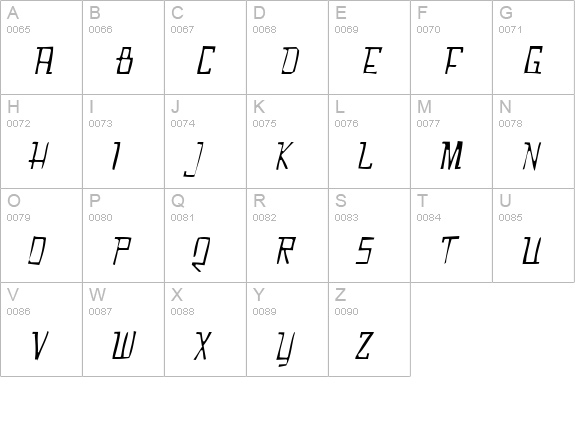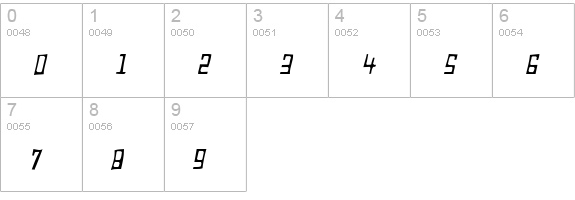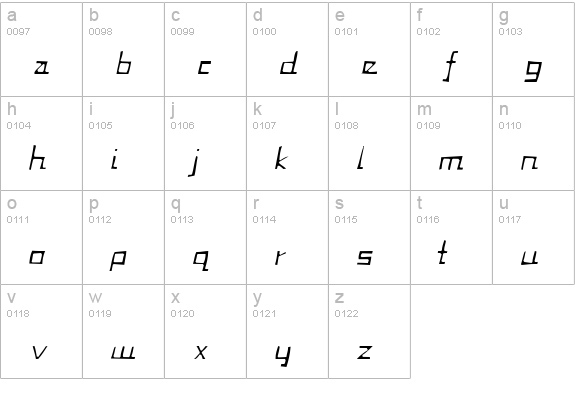
Fabian Gaunt Italic is a distinctive, italic variant in the Fabian typeface family \xE2\x80\x94 well suited to design and typography projects.
Fabian Gaunt Italic font is a sophisticated and elegant typeface that exudes a sense of modernity and style. Its sleek lines and graceful curves make it ideal for adding a touch of class to any design project. The italicized version of Fabian Gaunt adds a touch of flair and sophistication, perfect for creating a sense of movement and dynamism in your text. What makes Fabian Gaunt Italic font even more appealing is that it is available for free download at FontsMarket.com. This means that you can easily access this stunning font without any cost, making it a great choice for designers looking to elevate their projects without breaking the bank. Whether you're designing a logo, creating social media graphics, or working on a branding project, Fabian Gaunt Italic font is sure to make a lasting impression. Its versatility and timeless appeal make it a must-have in any designer's toolkit. Download Fabian Gaunt Italic font today and take your designs to the next level!